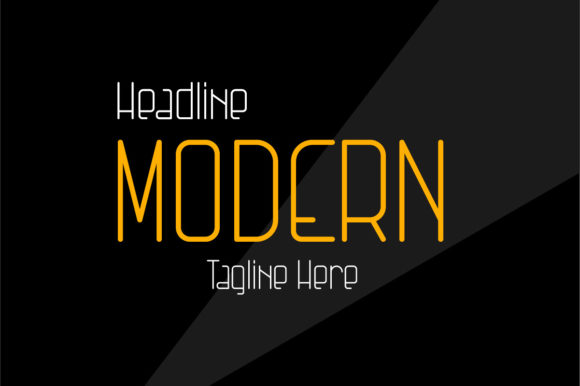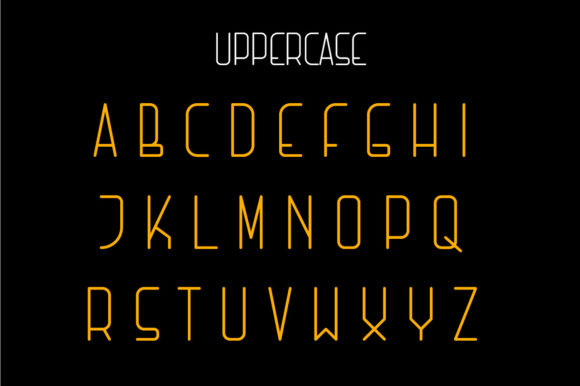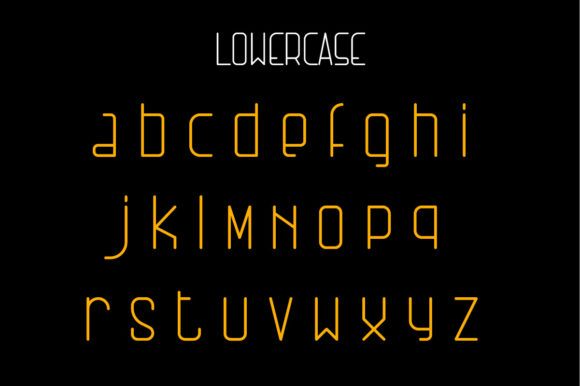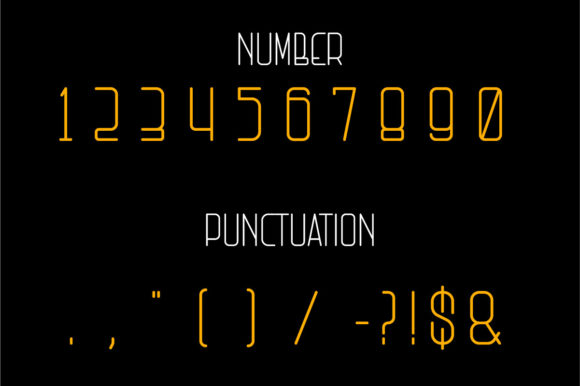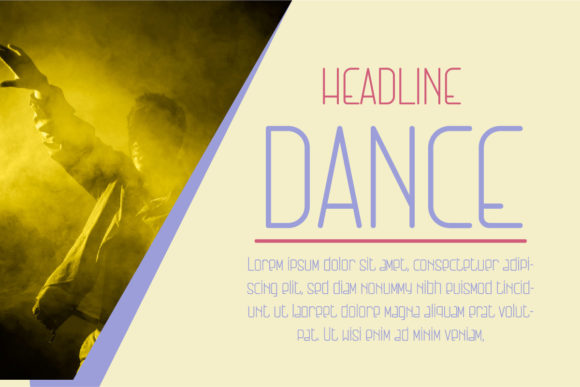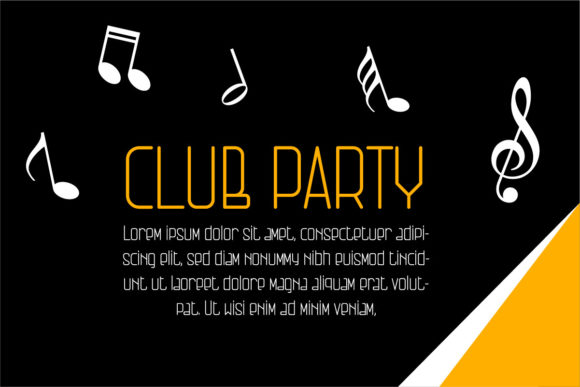
Introducing Amartha Font: The Ultimate Sans Serif Solution for Designers
In the world of typography, a font can make or break a design. A well-chosen font can elevate your creation, making it stand out from the crowd, while a poorly chosen one can detract from the overall impact. For designers and crafters, finding the perfect font can be a daunting task. That’s where Amartha Font comes in – a clean, neat, and adaptable sans serif font that’s sure to become an incredible asset to your font library.
What is Amartha Font?
Amartha Font is a modern sans serif font designed to be versatile and highly adaptable. Its clean and neat lines make it perfect for a wide range of applications, from digital designs to print materials. Whether you’re working on a logo, brochure, website, or social media graphics, Amartha Font is the perfect choice.
Key Features of Amartha Font
- Clean and Neat Design: Amartha Font boasts a clean and neat design, making it perfect for designs that require a professional and modern look.
- Adaptable: This font is highly adaptable, allowing you to use it for various design projects, from digital to print.
- Sans Serif: As a sans serif font, Amartha Font is ideal for designs that require a clean and minimalist look.
- Easy to Read: The font’s clear and legible design makes it easy to read, even at small sizes.
Benefits of Using Amartha Font
So, why should you choose Amartha Font for your design projects? Here are just a few benefits:
- Elevate Your Designs: With Amartha Font, you can elevate your designs and make them stand out from the crowd.
- Save Time: This font’s versatility saves you time and effort, as you can use it for multiple design projects.
- Professional Look: Amartha Font gives your designs a professional and modern look, perfect for businesses and brands.
- Easy to Pair: This font is easy to pair with other fonts, making it perfect for designs that require a unique font combination.
Who Can Benefit from Amartha Font?
Amartha Font is perfect for:
- Graphic Designers: Add a professional and modern touch to your designs with Amartha Font.
- Crafters: Use Amartha Font to create beautiful and unique crafts, such as handmade cards and invitations.
- Small Business Owners: Elevate your brand with a professional and modern font.
- Web Designers: Use Amartha Font to create clean and modern websites that stand out.
In conclusion, Amartha Font is an incredible asset to any designer’s font library. Its clean, neat, and adaptable design makes it perfect for a wide range of applications. Whether you’re a graphic designer, crafter, small business owner, or web designer, Amartha Font is the perfect choice for elevating your designs and making them stand out from the crowd.